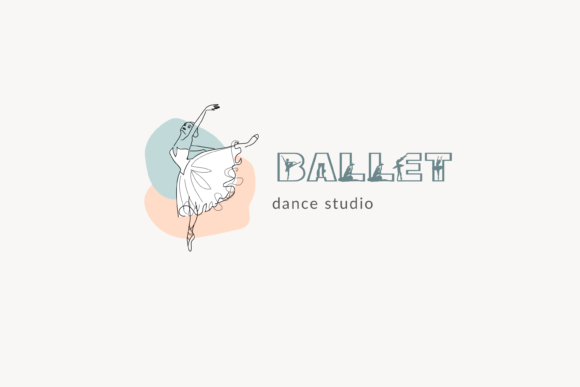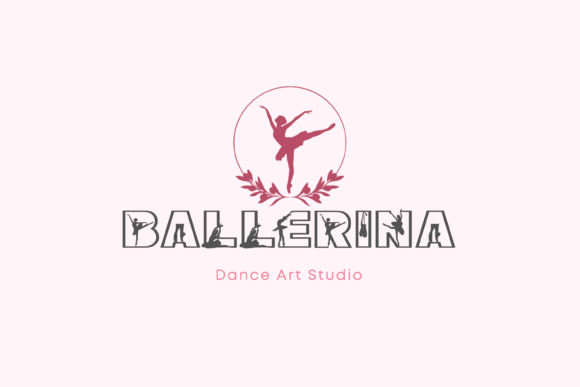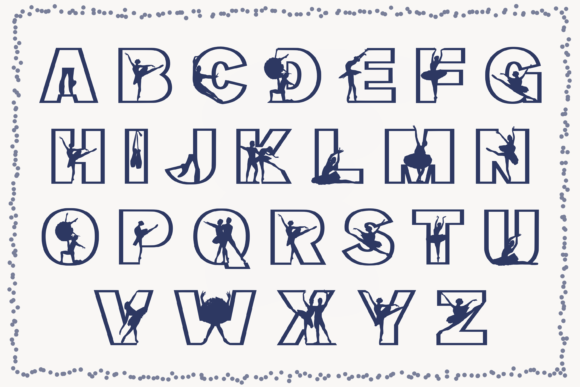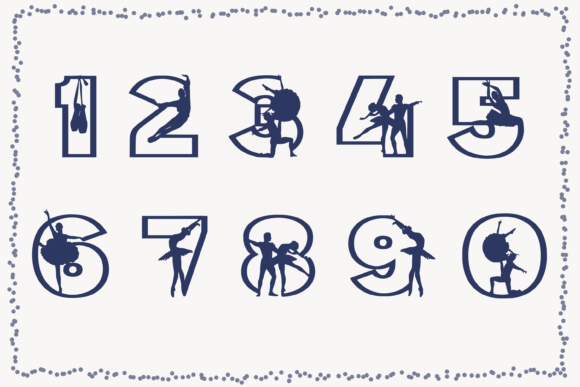
Introduction to Leap Font
Leap is a ballet themed, incredibly unique decorative font.
It is perfect for posters, stickers, designs or branding business This font will instantly make your posters looks outstanding.
Key Features of Leap Font